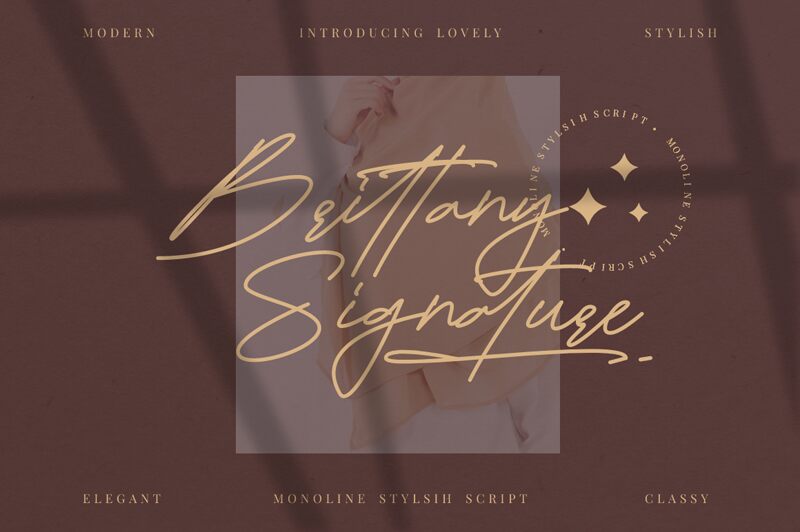
Brittany Signature font is a free handwritten font designed by Fntyp Std. This beautiful font style can be used in projects of all types and can make a big difference to things like the legibility and impact of your message. The elegant style looks graceful even in longer paragraphs of text and keeps them light and enjoyable to go through. Despite being naturally messy, casual, and irregular, the handwriting in Brittany is fluid, stylish, and contemporary.
Create beautiful ideas for headings, fashion design, apparel, quotations, marketing material, social media images, branding material, labels, watermarks, etc. with the Brittany signature font. Use the photographs by the designer for inspiration.